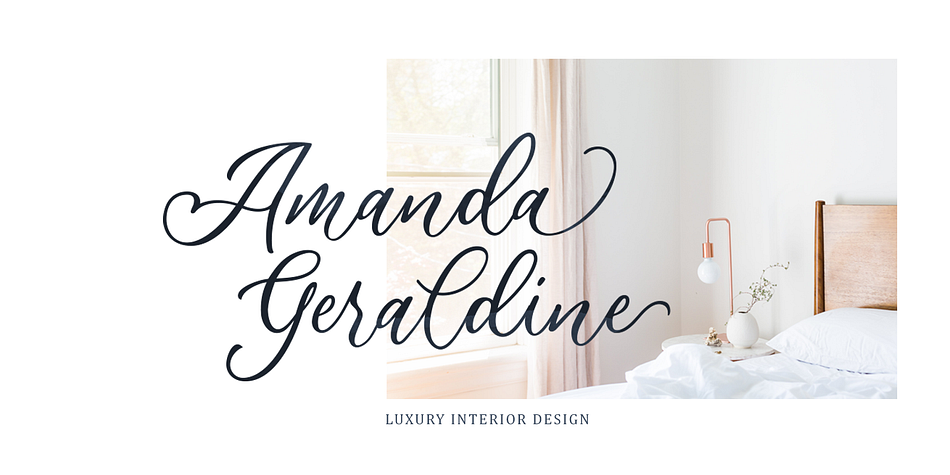
Athalia
Designed by Hendry Juanda, Athalia is a modern calligraphy and script font published by Letterhend Studio.
Athalia is a lovely modern script that bring luxury feel. The natural hand writing script is suitable for you who needs a typeface for headline, logotype, apparel, invitation, branding, packaging, advertising etc. This typeface is comes in uppercase, lowercase, punctuations, symbols & numerals, stylistic set alternate, ligatures, etc also support multilingual.
Styles Modern Calligraphy, Script